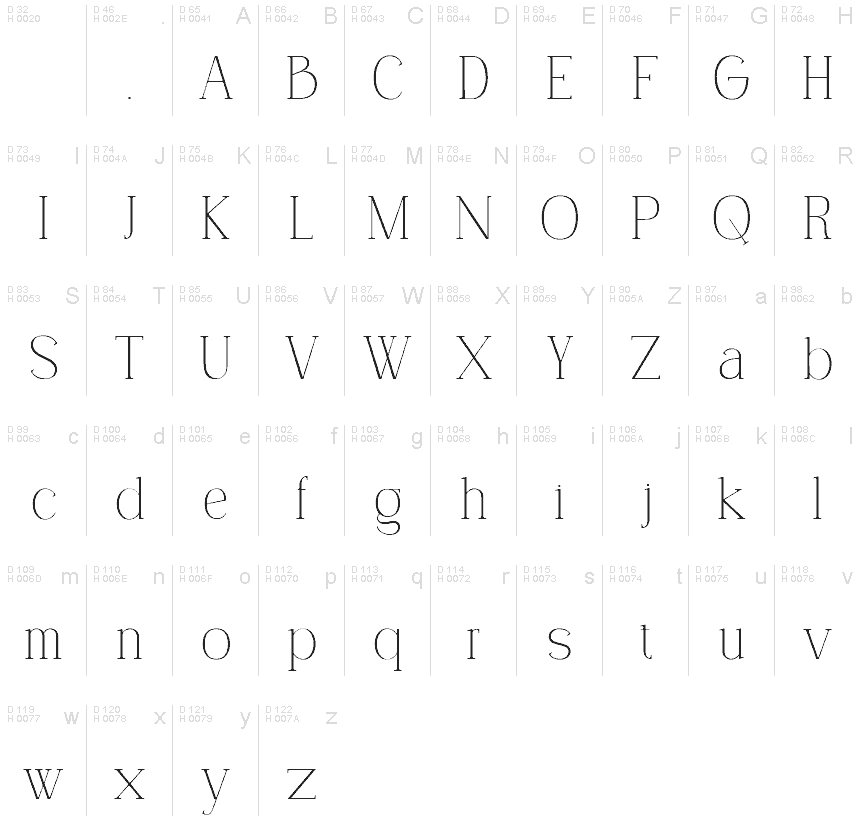
Serenity Moment Regular
Serenity Moment font by Muksal Creative is an elegant, light serif typeface exuding timeless sophistication. With subtle contrast and refined features, it draws from traditional influences to deliver a classic yet modern look. Its delicate and poised appearance makes this font a versatile addition.
It can be used free on book covers, greeting cards, wedding invitations, business cards, personal diaries or journals’ covers, certifications, magazines headlines where thin body fonts are appreciated over bold ones!